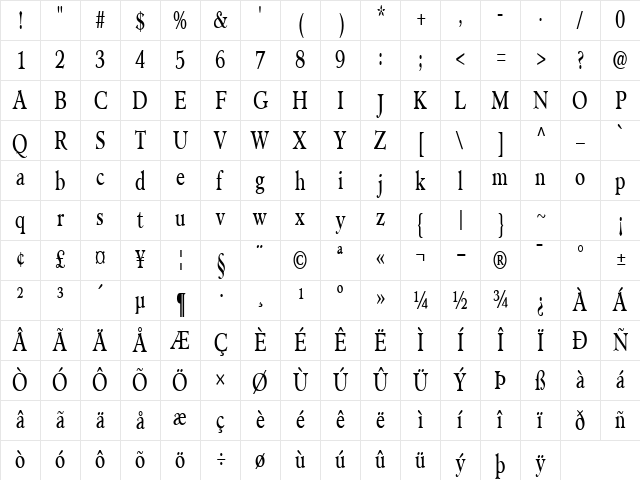
PilgrimCondensed Regular
PilgrimCondensed Family
PilgrimCondensed Regular
Complete PilgrimCondensed Regular glyph index. Displaying only characters natively supported by PilgrimCondensed Regular font.
Design Context for PilgrimCondensed
PilgrimCondensed is a composed and adaptable typeface that performs quietly and consistently across a wide range of design contexts. Its narrow stance lets it pack a punch even in space-constrained designs.